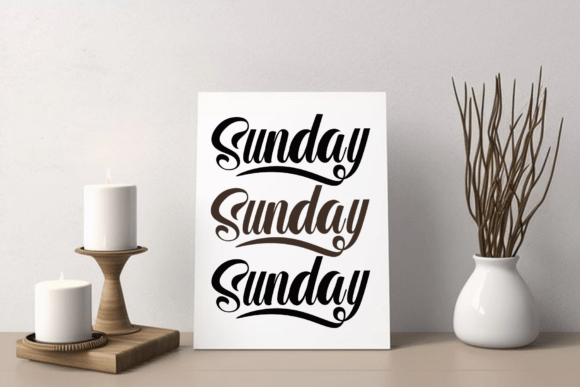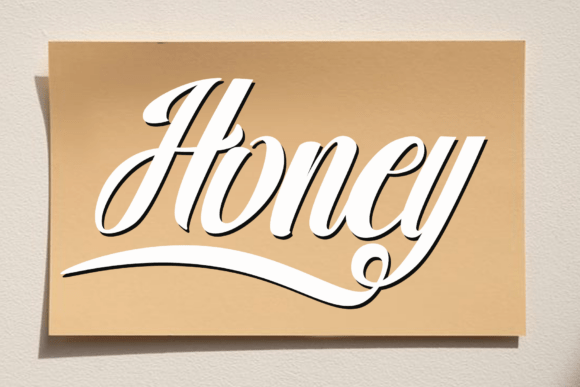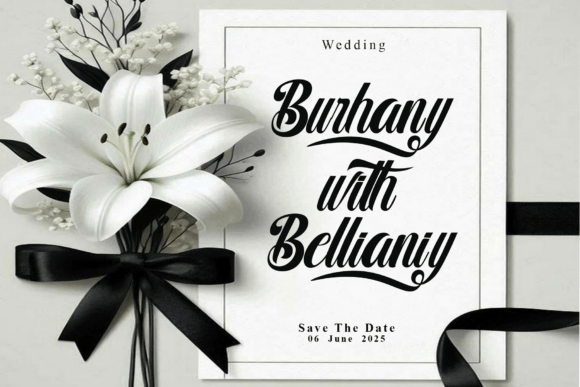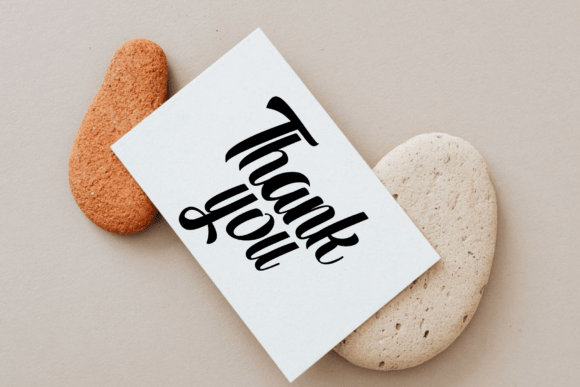
Introduction to Smart Beauty Font
Smart Beauty is a stylish handwritten font with a contemporary atmosphere and impeccable form, inspired by a timeless classic calligraphy.
Balanced and varied, this font was designed to enhance the beauty of your projects .
Key Features of Smart Beauty Font